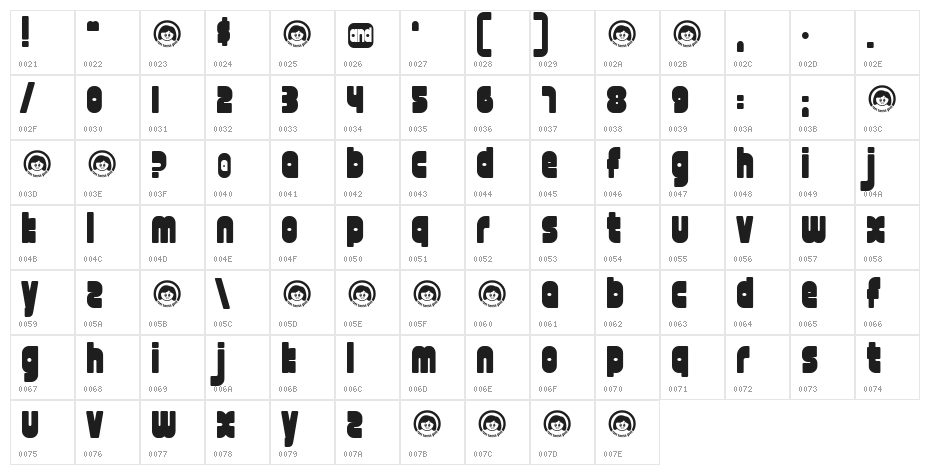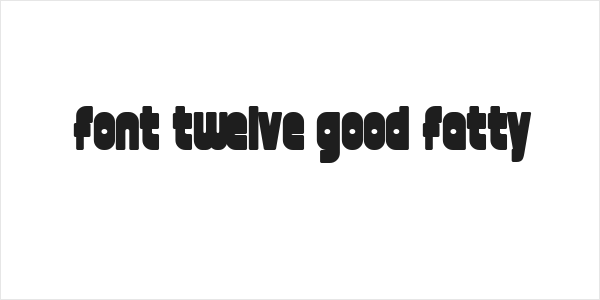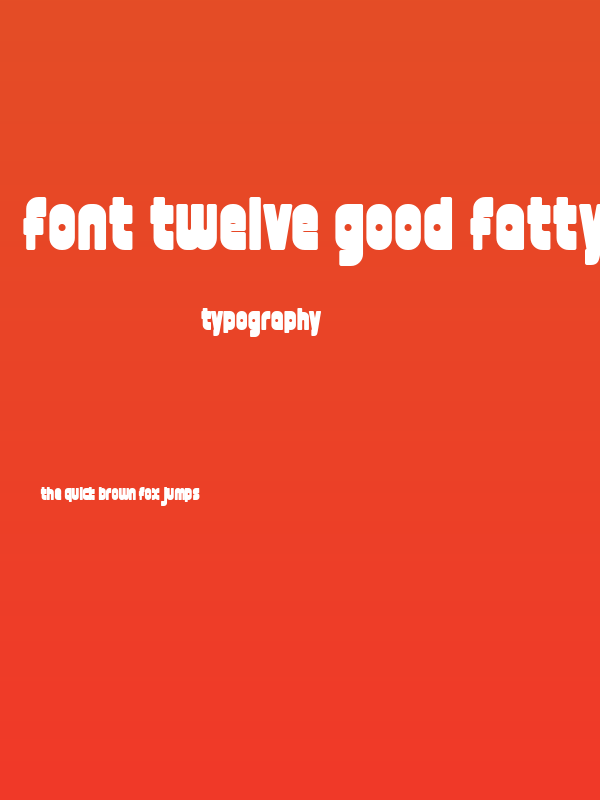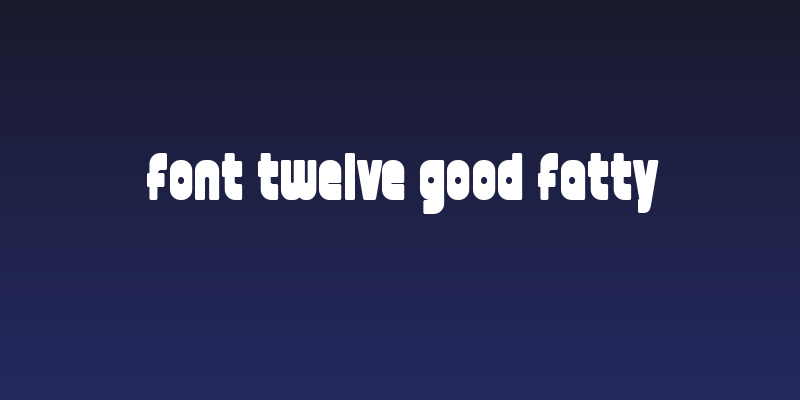
font twelve good fatty Font
font twelve good fatty Description
This font features bold, rounded characters with a playful and chunky appearance. The letters are uniformly thick, creating a strong visual impact. The style is reminiscent of retro or vintage designs, with a modern twist. It includes both uppercase and lowercase letters, numbers, and a variety of special characters. The overall look is friendly and approachable, making it suitable for projects that require a fun and engaging typeface.
| Overall Style | Retro, Modern |
| Proposed Projects | Ideal for children's books, playful branding, posters, and social media graphics. |